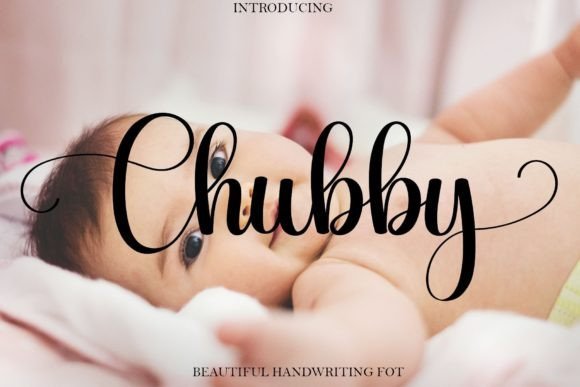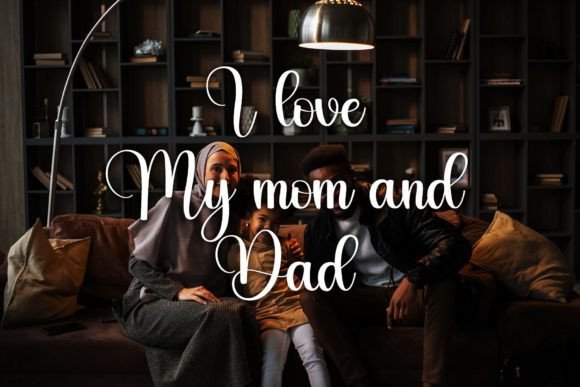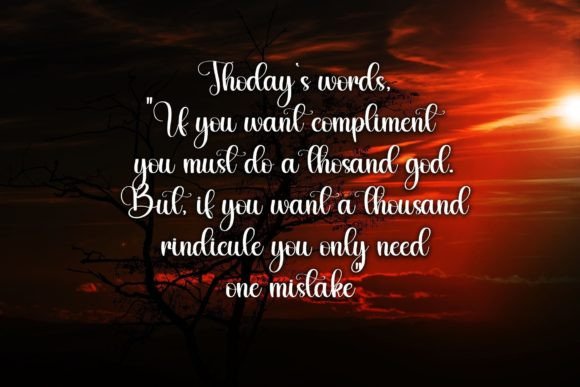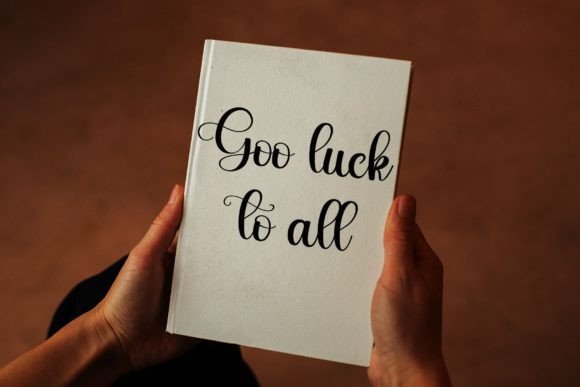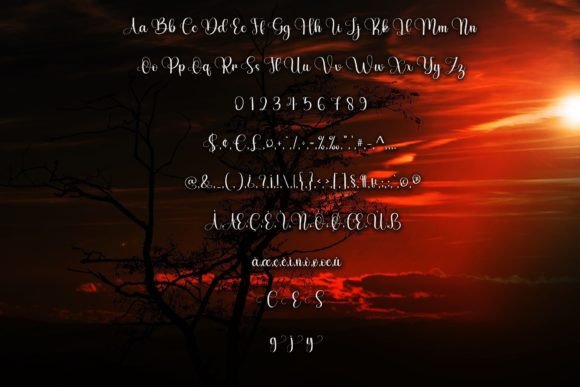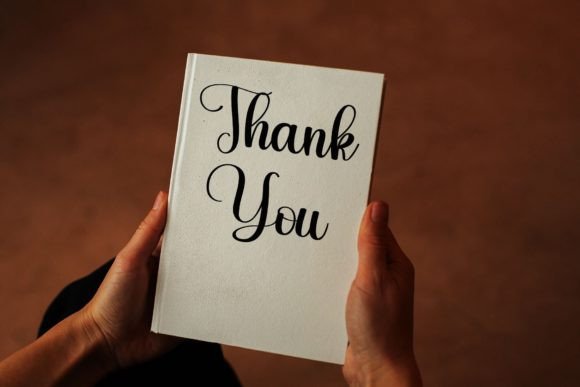
The Perfect Script for Your Next Design Masterpiece
Have you ever stared at a blank canvas, waiting for the perfect spark to ignite your creativity? Maybe it’s a blank sheet of paper, a glowing screen, or even a blank slate in your mind. Whatever the medium, the feeling is the same – the thrill of bringing something new to life. And when that spark finally strikes, everything else fades into the background, leaving only the thrill of creation.
| 👤 Author | Harlek studio |
For designers, finding that spark can be a game-changer. It’s the difference between a mediocre design and a masterpiece. And that’s where the Chubby Font comes in – a sweet and beautiful handwritten font that adds a touch of luxury to any project. With its dancing characters along the baseline, this font is a must-have for designers looking to elevate their work.
Chubby Font Key Features
- Unique Characteristics: Chubby Font features a distinctive, rounded design with a high x-height, making it highly legible and readable in a variety of contexts.
- Design Flexibility: Chubby Font is designed to be highly customizable, with features such as kerning, ligatures, and OpenType features, allowing designers to fine-tune the font to suit their specific needs.
Designer Review: Chubby Font
Overall, I was impressed with the uniqueness and charm of Chubby Font. The font’s rounded shapes and friendly feel make it perfect for designs that require a playful and approachable tone. ✨
The font’s versatility also shines, making it suitable for a wide range of applications, from children’s books and educational materials to branding and advertising. ✨ The extensive character set and language support are definite bonuses, allowing designers to use Chubby Font in various contexts.
- Unique and playful design
- Extensive character set and language support
- Versatile for various applications
- May not be suitable for formal or professional designs
- Some letters may appear too rounded or childish for certain applications
- Lack of a bold weight option may limit its use in certain contexts
Overall, Chubby Font is a delightful and functional font that can bring a touch of whimsy to various designs. While it may not be the best fit for every project, it’s certainly a great addition to any designer’s toolkit.
The Chubby Font is ideal for creating playful and whimsical designs, such as:
- Social media posts and graphics
- Food and restaurant branding
Remember to experiment with different font sizes and styles to get the most out of the Chubby Font.
Alternatives to Chubby Font
Playfair Display is a luxurious and elegant font suitable for high-end branding and advertising. It features a mix of modern and classical elements, making it perfect for creating a sophisticated look. When to use: Luxury brands, high-end fashion, and premium products. Playfair Display is more formal and refined compared to Chubby Font, which is more playful and casual.
Amarante
Amarante is a script font with a warm and inviting feel. It’s ideal for creating a sense of friendliness and approachability. When to use: Personal branding, creative agencies, and small businesses. Amarante is more fluid and cursive compared to Chubby Font, which is more blocky and geometric.
Great Vibes is a modern and trendy font with a relaxed feel. It’s perfect for creating a casual and laid-back atmosphere. When to use: Young and energetic brands, music festivals, and recreational activities. Great Vibes is more laid-back and informal compared to Chubby Font, which has a more playful but still formal tone.
What is the recommended font size for Chubby Font?
The recommended font size for Chubby Font depends on the context in which it will be used. For body text, a font size between 10-14 points is recommended. For headings and titles, a font size between 18-24 points is recommended. You can adjust the font size to suit your specific design needs, but be sure to test the font at different sizes to ensure it remains legible and visually appealing.